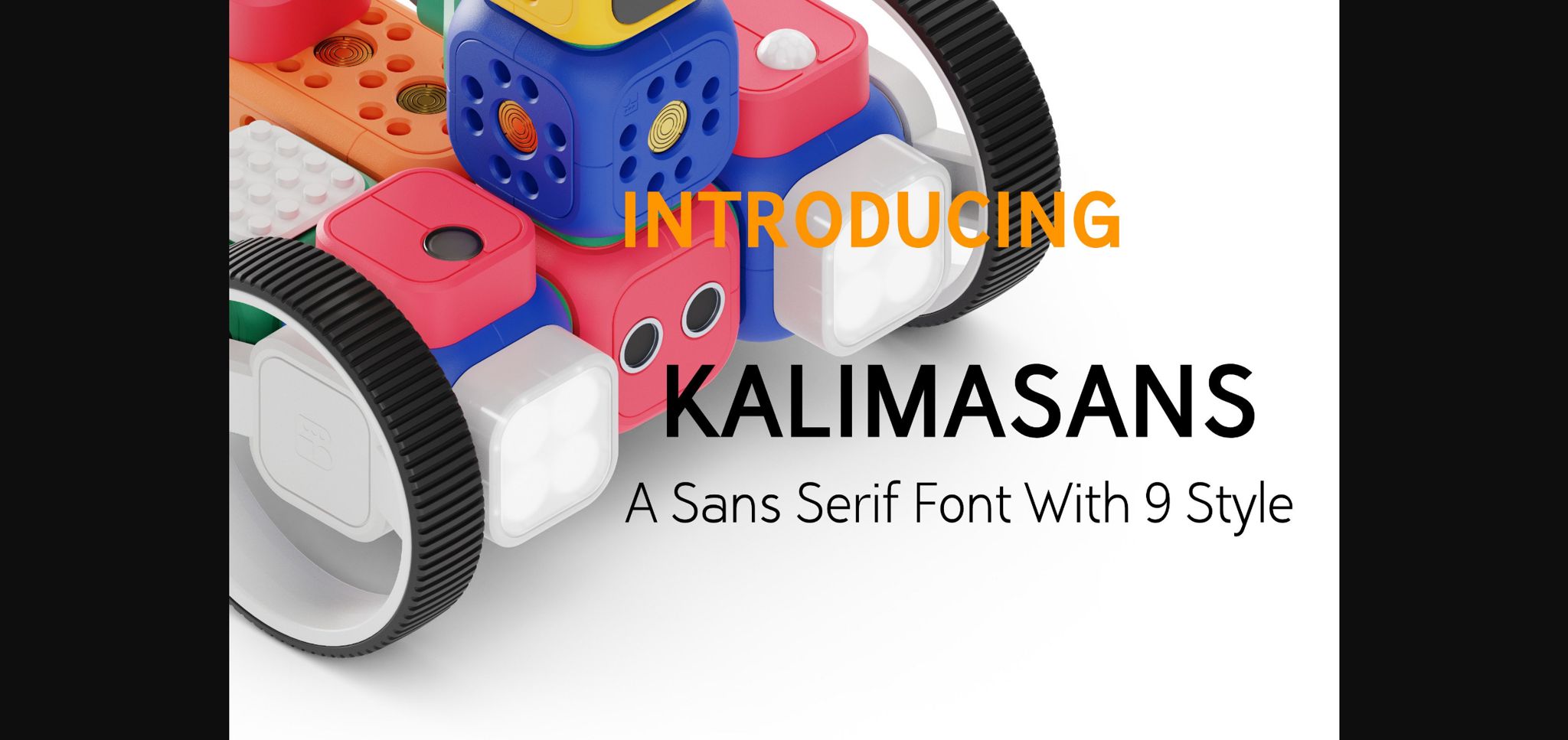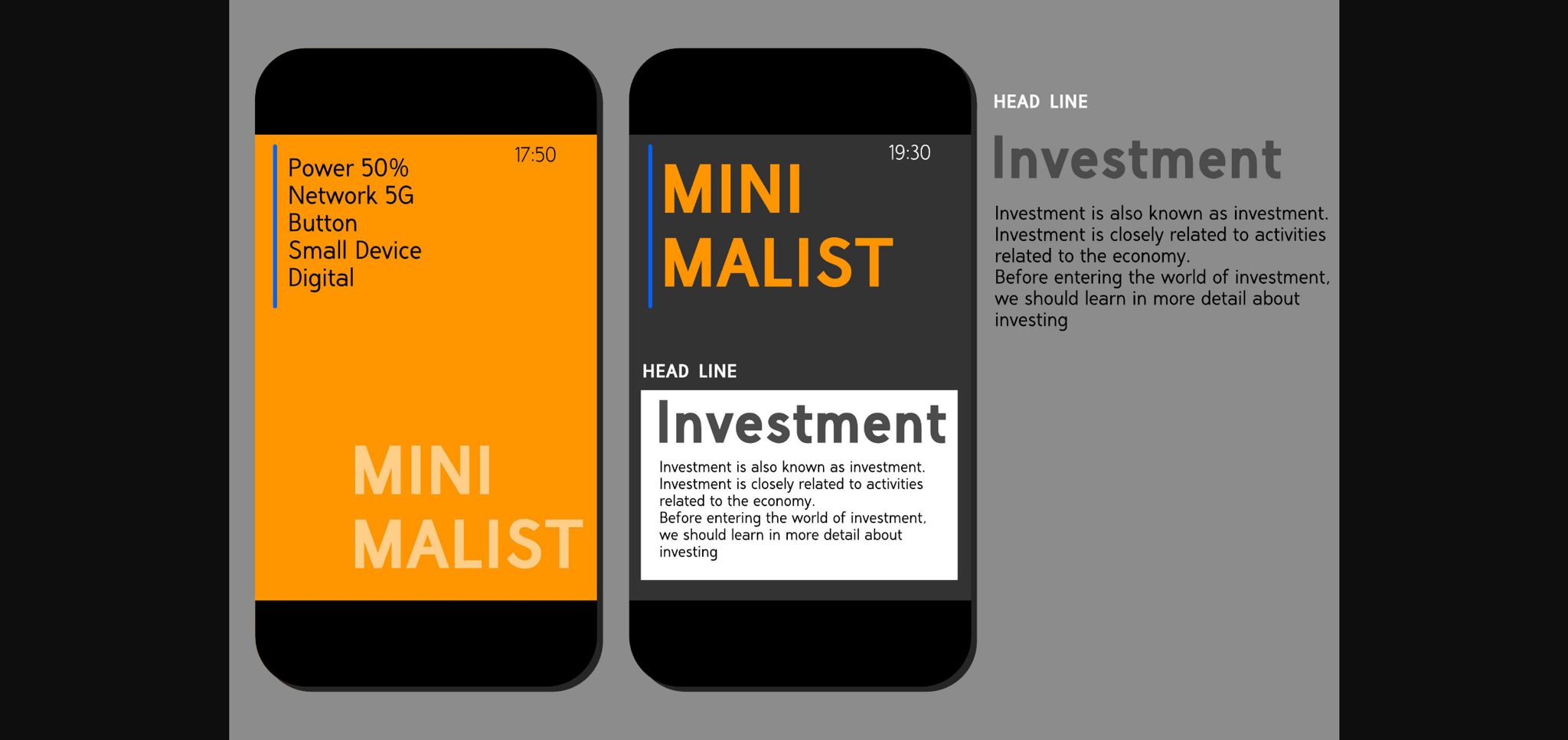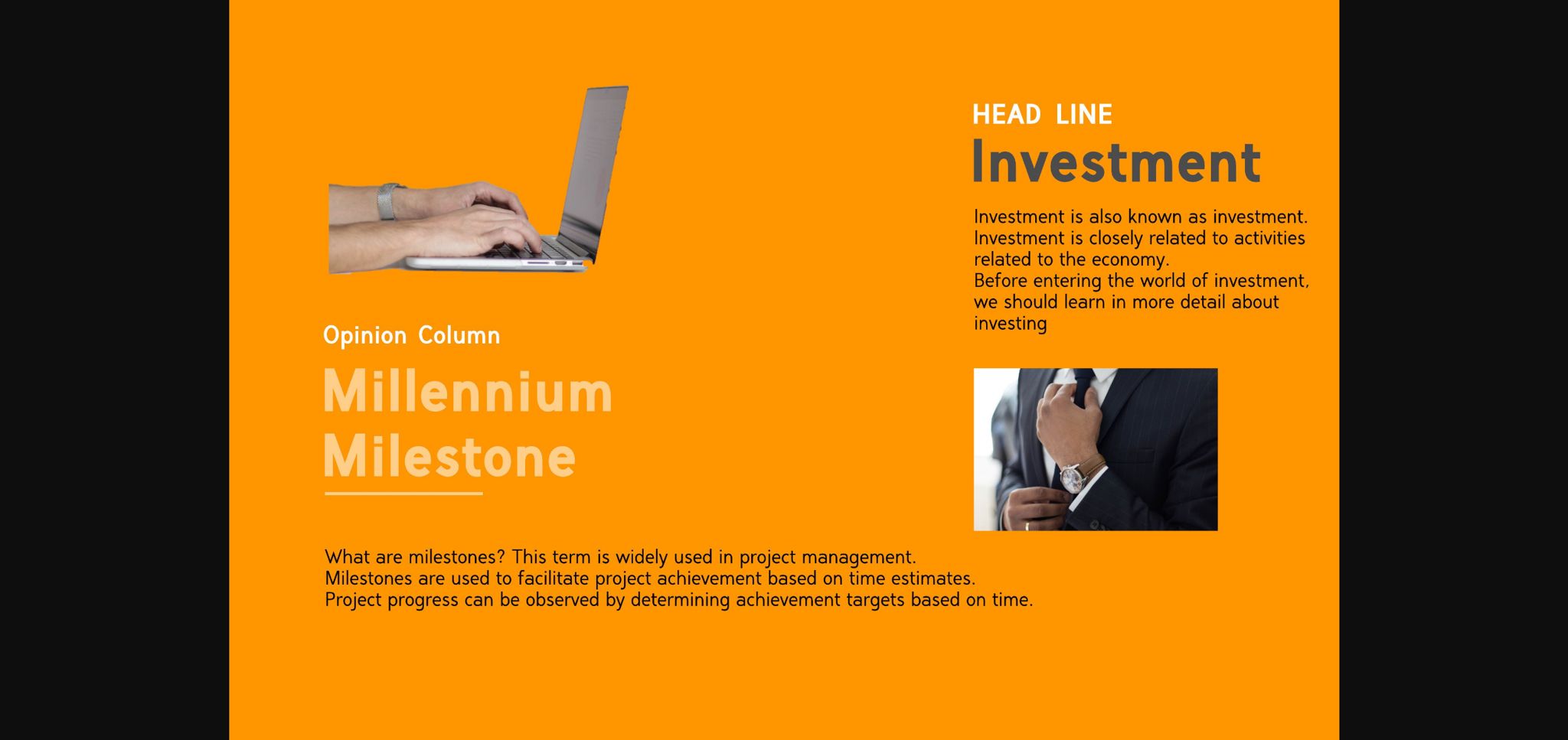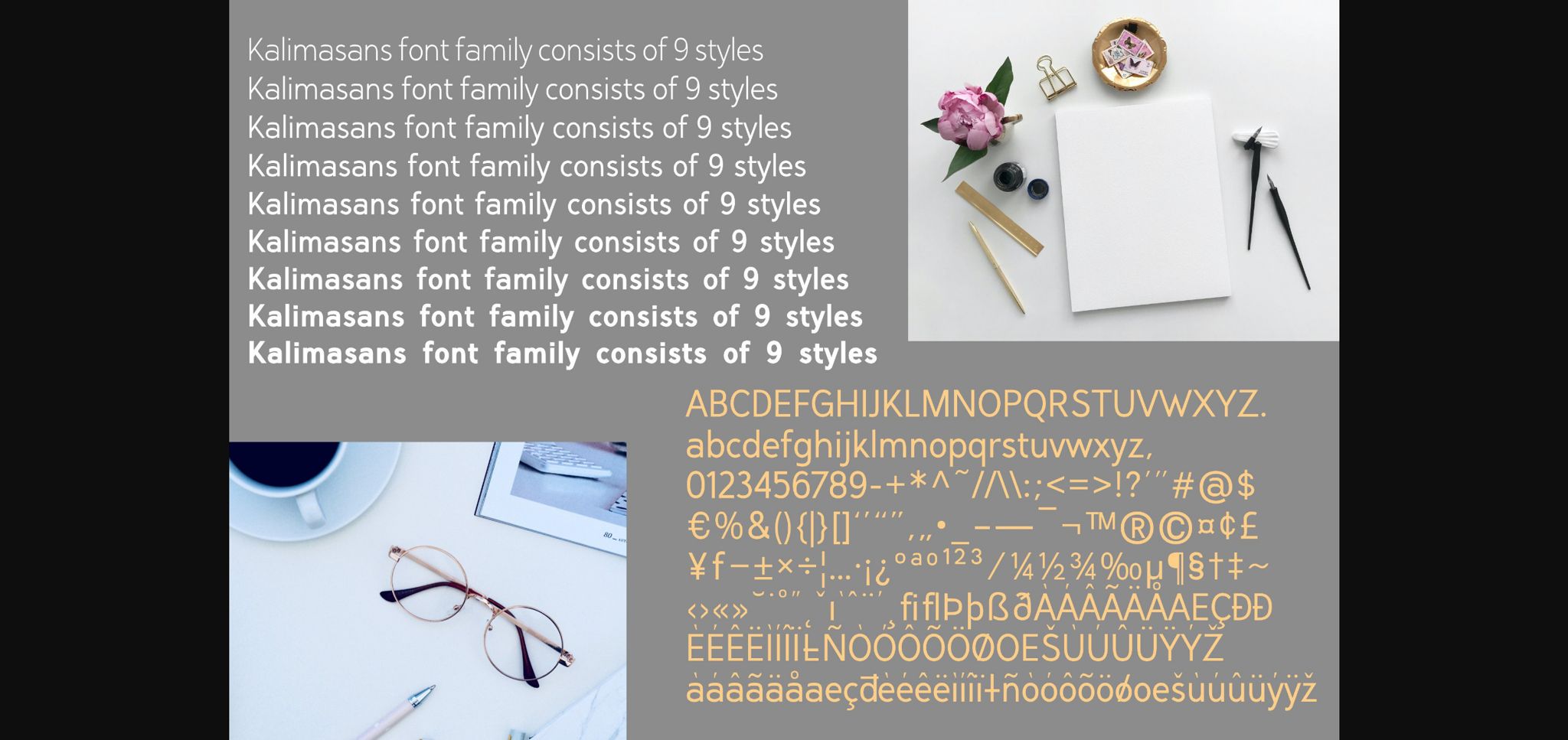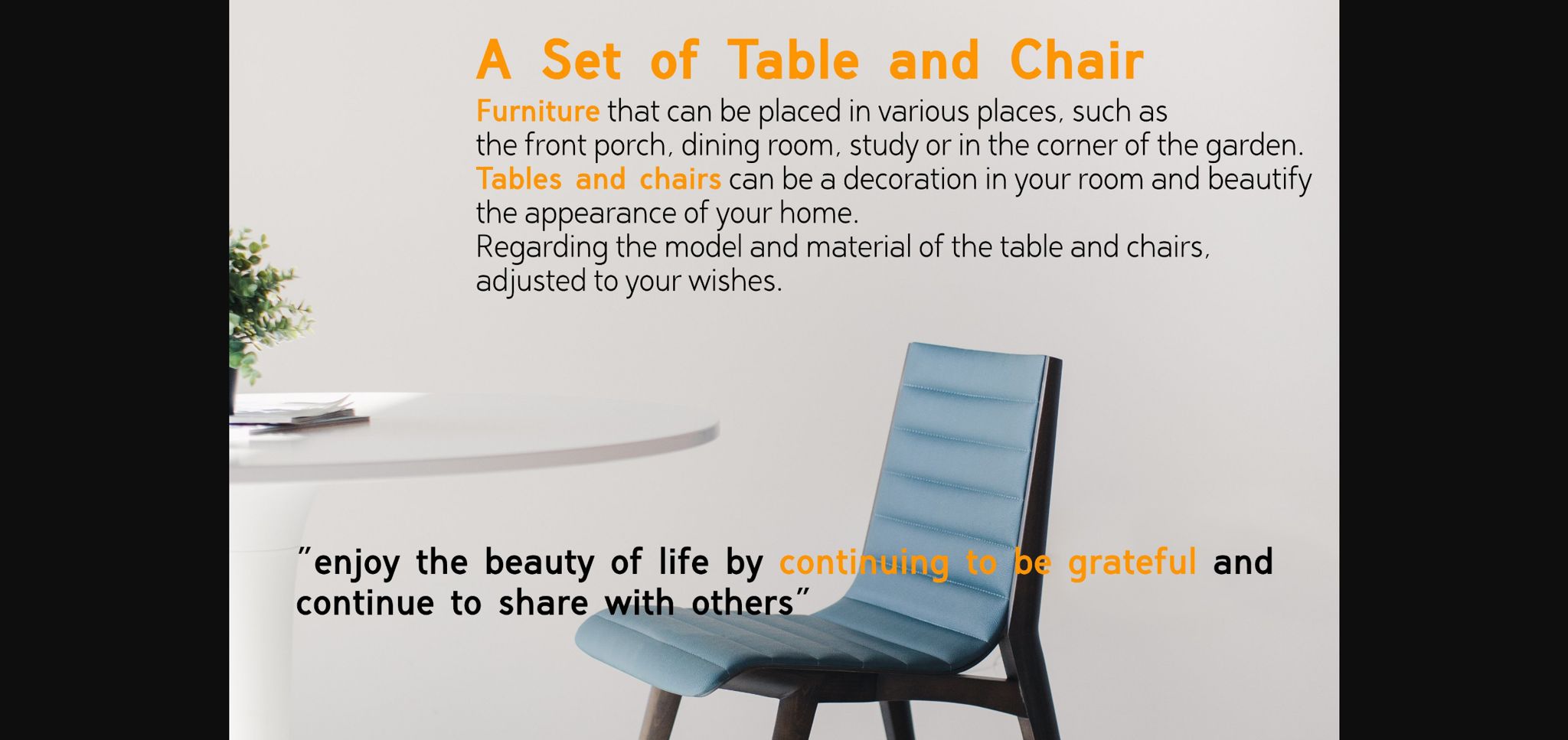
Kalimasans Font
About Kalimasans Font
Kalimasans is a classic sans serif font. Its various styles make it incredibly versatile and suitable for a wide pool of design ideas. Add it confidently to your projects and you will love the results!